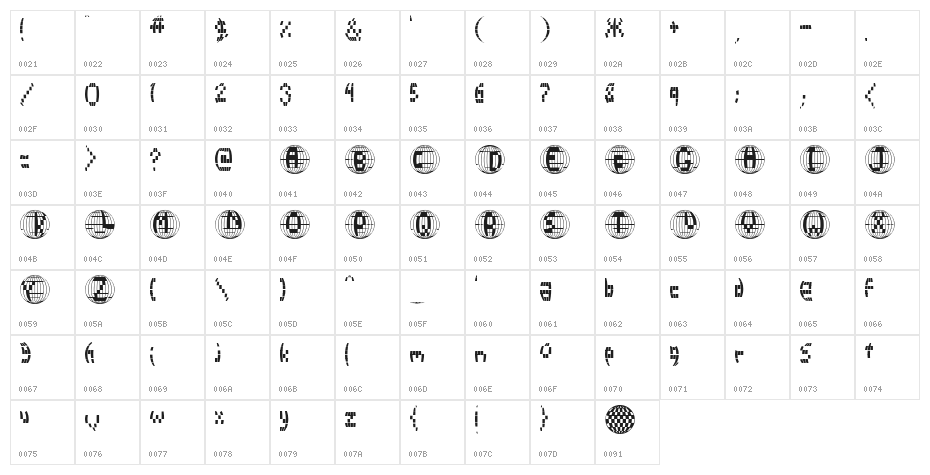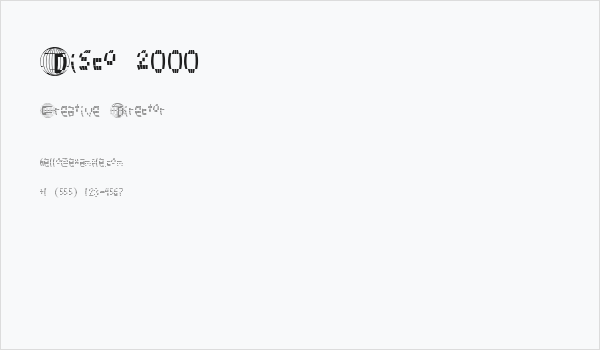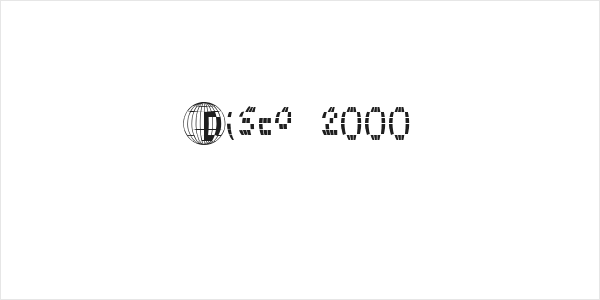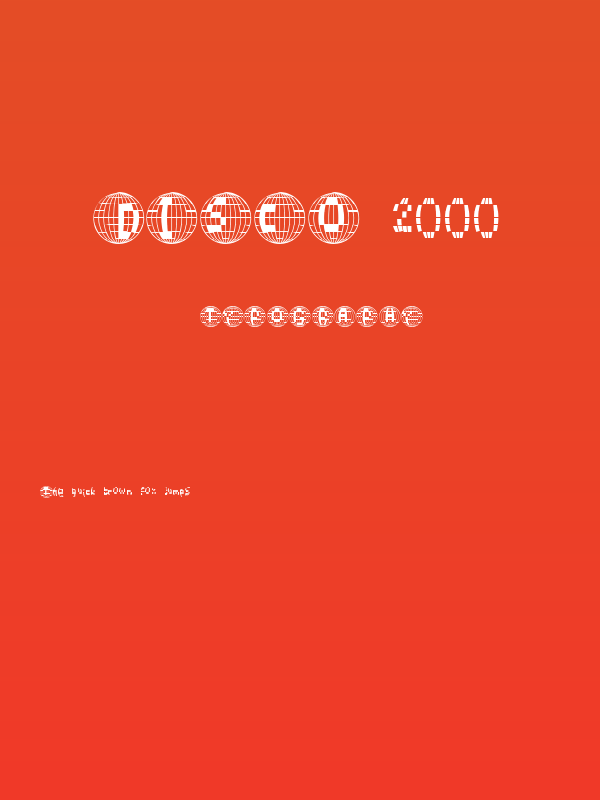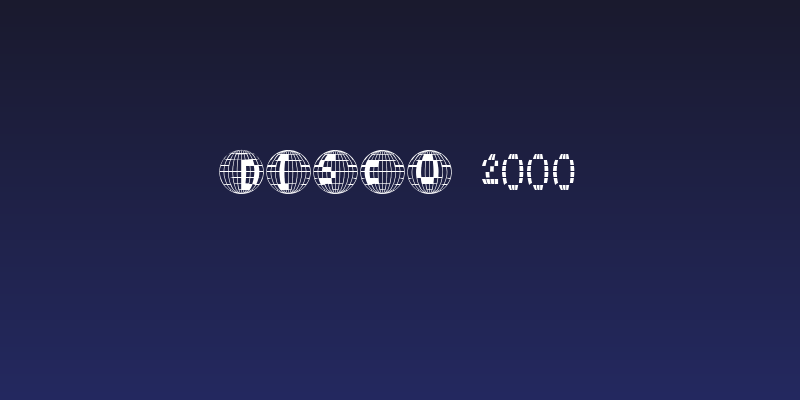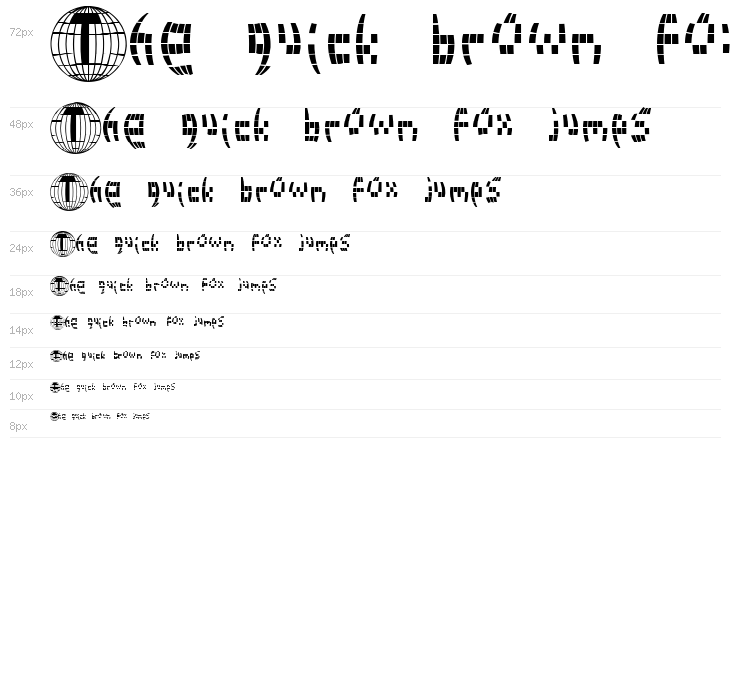
Disco 2000 Font
Disco 2000 Description
This font features a unique, futuristic design reminiscent of disco balls, with each character composed of segmented, reflective squares. The uppercase letters are enclosed within circular outlines, enhancing the disco theme. The lowercase letters and numbers maintain the segmented style, creating a cohesive look across all characters. The special characters are similarly styled, ensuring consistency. This font's playful and bold design makes it ideal for eye-catching projects that require a retro or party vibe.
DISCO-2000 UPPERCASE
DISCO-2000 LOWERCASE
DISCO-2000 OTHER CHARS
| Overall Style | Retro, Futuristic |
| Proposed Projects | Ideal for party invitations, event posters, music album covers, and retro-themed designs. |